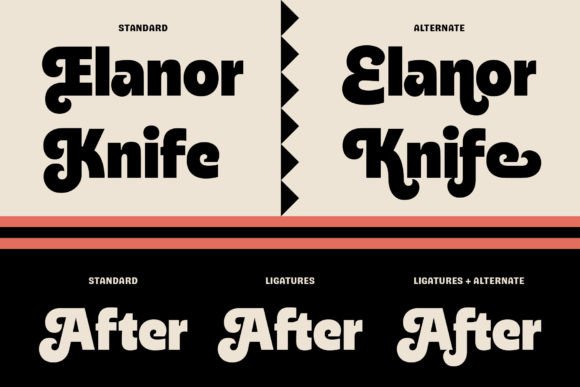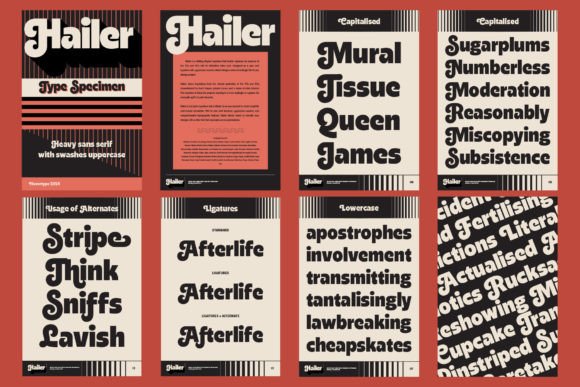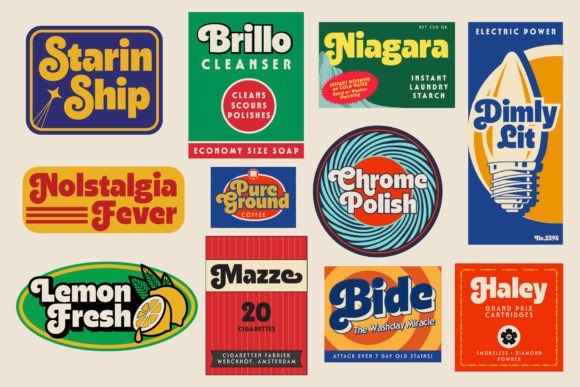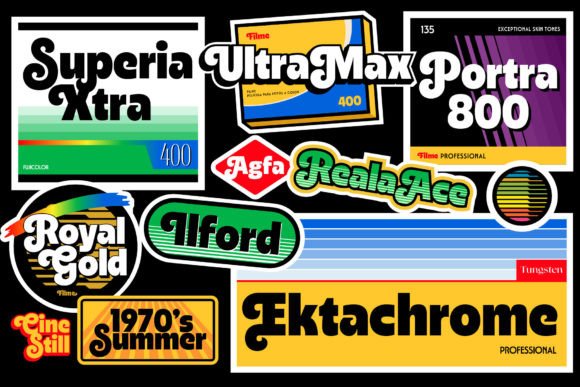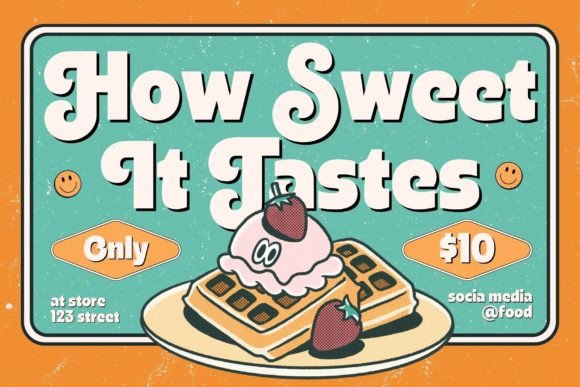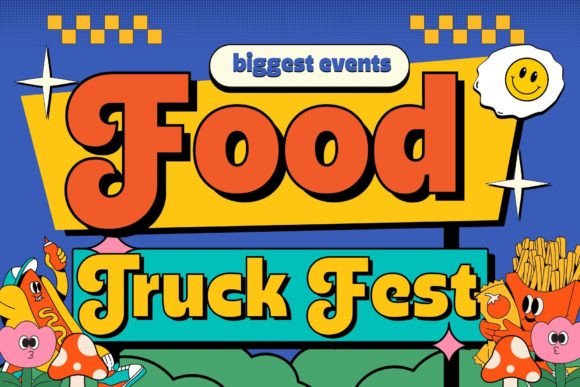
Introduction to Hailer Font
As a designer, have you ever been stuck trying to evoke the spirit of a bygone era in your creative project? Maybe you’re working on a retro-themed campaign or a project that requires a touch of nostalgia. You’re not alone. Many designers struggle to find the perfect font to capture the essence of a particular time period. But what if I told you there’s a font that can transport you back to the vibrant 70s and 80s with its bold, playful style? Enter the Hailer Font, a striking display typeface that’s about to become your new go-to design resource.
With its sans serif structure and uppercase swashes, the Hailer Font is the perfect addition to any high-quality design project. Its transparent background and comprehensive typographic features make it a valuable asset for designers seeking to elevate their work with a retro flair that resonates across generations.
Key Features of Hailer Font
- High-quality typography with a modern and sleek design, perfect for creative projects.
- Supports a wide range of languages, making it a versatile design resource for international projects.
- Includes a comprehensive character set, including uppercase and lowercase letters, numbers, and punctuation.
Honest Review: Hailer Font
I recently had the chance to work with the Hailer Font, and I must say it’s been a game-changer for my creative projects. This high-quality font is perfect for designers who want a clean and modern look for their designs.
- High-quality design that’s perfect for modern creative projects
- May not be suitable for very complex designs due to its clean and simple design
- Limited font styles available, may not be suitable for projects requiring a wide range of font options
- Some users may find the font too modern or trendy
Overall, I’m impressed with the Hailer Font. It’s a great addition to any designer’s toolkit, and its high-quality design makes it a must-have for any creative project. While it may have some limitations, I believe it’s a valuable design resource that’s worth checking out.
Hailer Font
Tips for Getting the Most Out of Hailer Font
Hailer Font is ideal for creative projects that require a clean and modern look, such as logo designs, business cards, and brochures. Its transparent background feature makes it perfect for designs that require a subtle or minimalist approach.